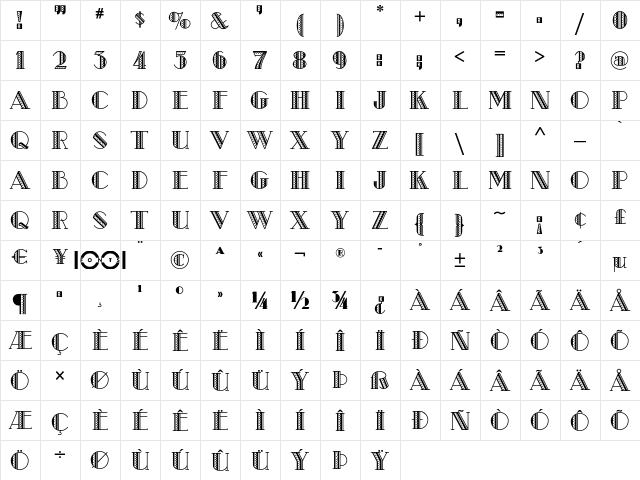
Metro Retro NF Regular
| Designer | Nick Curtis |
Design Context for Metro Retro NF Typeface
Metro Retro NF has the warm character of retro typography — evoking diners, record sleeves, and the golden age of print advertising.
Perfect for vintage-inspired branding, retro packaging, nostalgia campaigns, and period-accurate editorial design.
Font Pairing: Combine Metro Retro NF with a simple slab or neutral sans — period-accurate companions reinforce the vintage feel without competing for attention.
Pro Tip: Use Metro Retro NF for headlines and pull quotes rather than body copy — its personality is best appreciated in short, focused bursts.